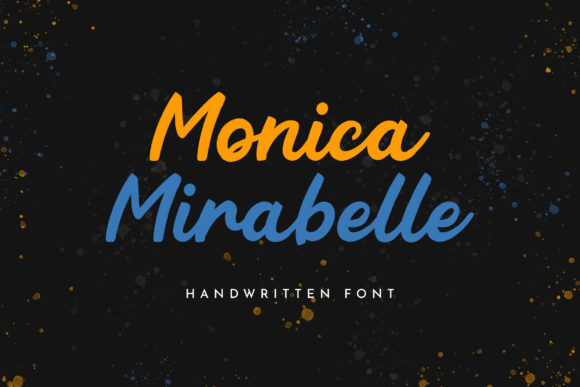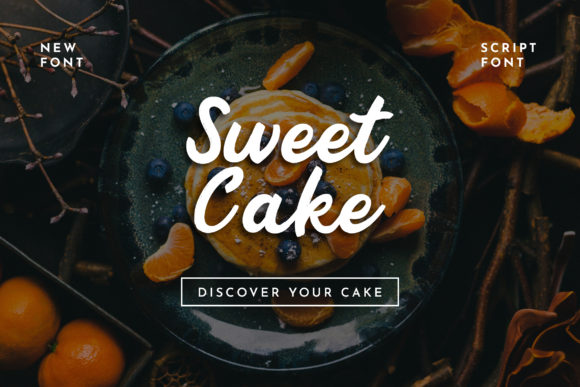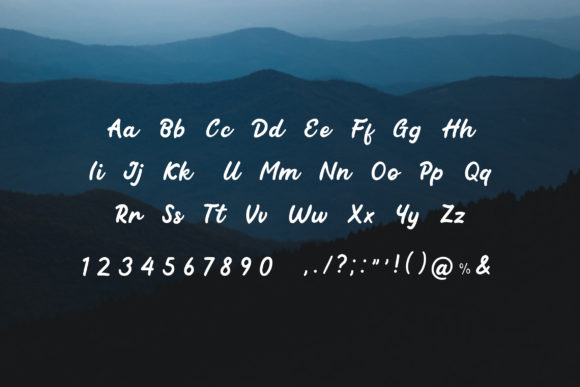
Introduction to Monica Mirabelle Font
Have you ever found yourself in a creative frenzy, surrounded by scraps of paper, paint swatches, and scribbled notes, desperately searching for the perfect font to bring your vision to life? This is a moment many designers can relate to, and it’s exactly why discovering a stunning font like the Monica Mirabelle Font can be a game-changer.
As a refined and elegant paintbrush script font, Monica Mirabelle Font is the ultimate design resource for anyone looking to add a touch of sophistication to their creative project. Its beautiful, handwritten style makes it perfect for a variety of applications, from wedding invitations and thank you cards to logos and greeting cards.
Key Features of Monica Mirabelle Font
- Includes transparent background for seamless integration
- Monica Mirabelle Font comes in 3 different font styles: Regular, Bold, and Italic
- Designed with a unique, elegant script style perfect for invitations, wedding designs, and more
Honest Review: Monica Mirabelle Font
As a designer, I’m always on the lookout for high-quality fonts that can elevate my creative projects. The Monica Mirabelle Font is a popular choice among designers, and I decided to put it to the test.
First impressions: the font is a beautiful, elegant script that’s perfect for adding a touch of sophistication to your designs. It’s a great choice for wedding invitations, branding, or any project where you want to convey a sense of luxury.
What works well: ✨ The font has a very natural, handwritten feel that’s hard to replicate with other fonts. The characters are well-formed and easy to read, even at smaller sizes. The transparent background option is also a great feature, making it easy to layer the font over images or other design elements.
Limitations: ⚠️ While the font is beautiful, it’s not without its limitations. Some characters may not be as well-formed as others, and the font can be a bit difficult to read at very small sizes. Additionally, the font may not be suitable for projects that require a lot of bold or italic text.
Overall, I’m impressed with the Monica Mirabelle Font. It’s a great choice for designers who want to add a touch of elegance and sophistication to their projects. With a little care and attention, it can be a valuable addition to your design resource collection.
Key Features:
- High-quality, elegant script font
- Perfect for wedding invitations, branding, and other luxury projects
Monica Mirabelle Font
The Monica Mirabelle Font is a high-quality design resource perfect for creative projects. It features a transparent background, making it easy to layer and customize.
Tips for Getting the Most Out of Monica Mirabelle Font
Experiment with different font sizes, colors, and layering techniques to create unique and eye-catching designs. Combine the Monica Mirabelle Font with other design elements, such as graphics and images, to add depth and interest to your projects.
The Monica Mirabelle Font is perfect for a wide range of creative projects, including social media graphics, presentations, logos, and written content. Its transparent background and high-quality design make it an excellent choice for designers and non-designers alike.
Can I use the Monica Mirabelle Font on a transparent background?
Yes, the Monica Mirabelle Font supports transparent backgrounds, making it ideal for use on logos, icons, and other design elements that require a clear background. This feature is particularly useful for designers working on creative projects that require a high level of customization.